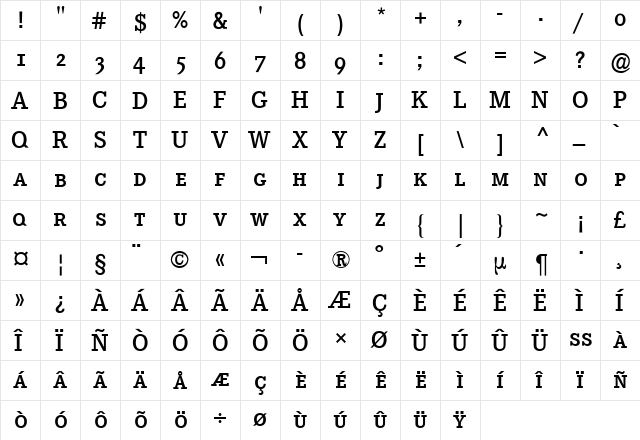
Corporate E Expert BQ Medium
Corporate E Expert BQ takes a measured approach to typography — its balanced proportions and neutral character make it a reliable workhorse for both digital and print work.
Pro Tip: Use Corporate E Expert BQ in both headline and body roles to test its range before committing to a single application.